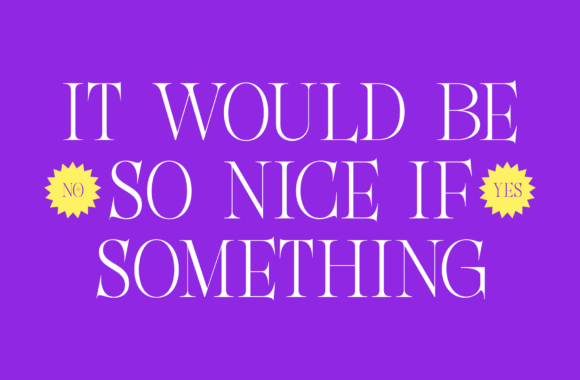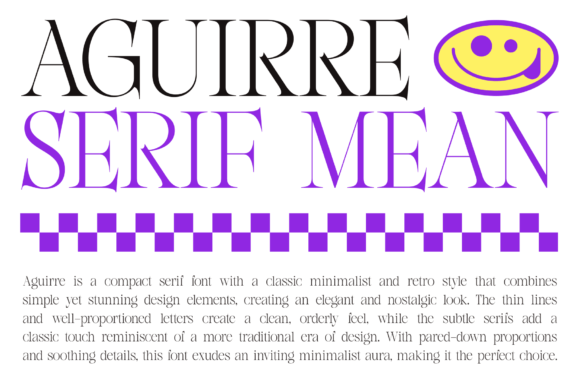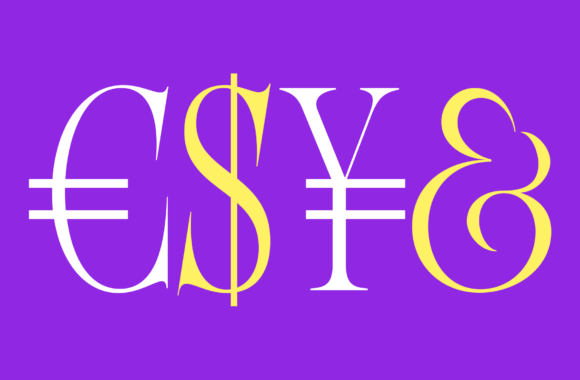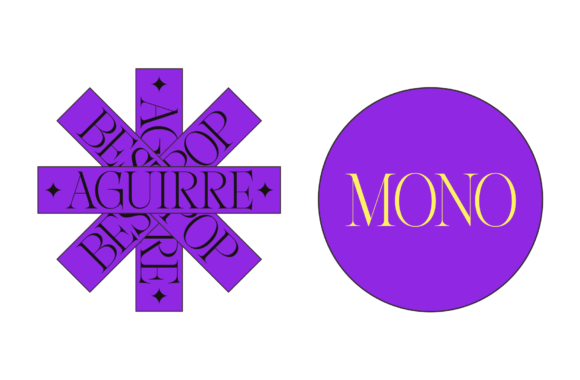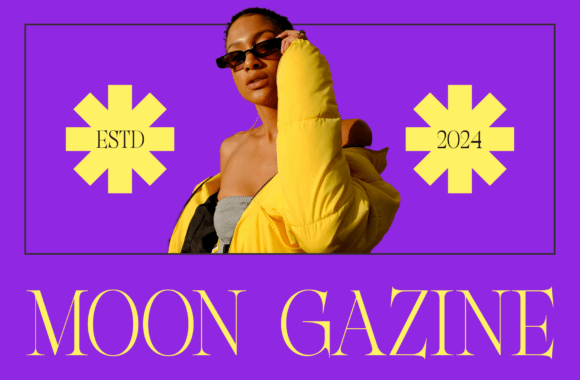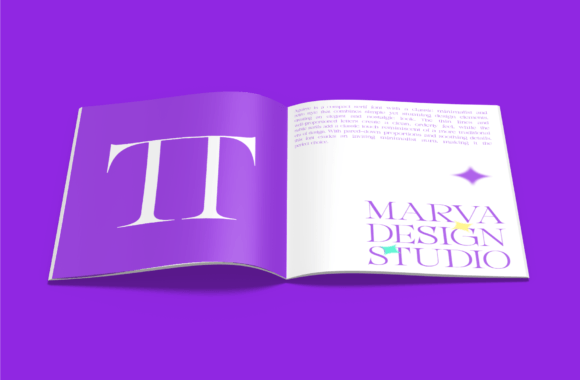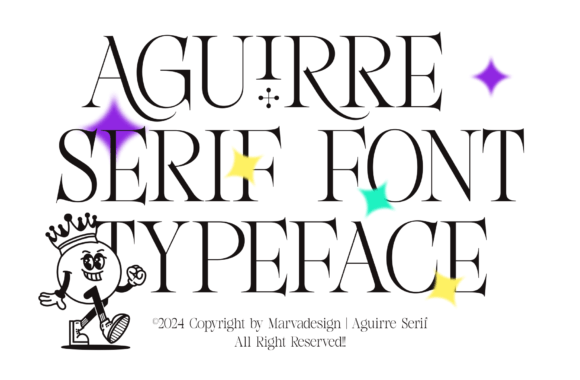
The Aguirre Font: A Timeless Classic for Creative Projects
I’ll never forget the struggle I faced while working on a vintage-themed branding project for a client. The goal was to evoke a sense of nostalgia and elegance, but I was stuck with a font that just didn’t feel right. The lines were too thick, the letters too ornate, and the overall look felt cluttered. It wasn’t until I stumbled upon the Aguirre font that the project finally came together. This compact serif font with its classic minimalist and retro style was exactly what I needed to give my design a sophisticated and inviting feel.
As I’ve continued to work with the Aguirre font, I’ve fallen in love with its simple yet stunning design elements. Here are a few things that make it stand out:
• Clean and orderly feel: The thin lines and well-proportioned letters create a sense of harmony and balance, making it perfect for body text and headings.
• Elegant and nostalgic look: The subtle serifs add a classic touch that evokes a sense of tradition and sophistication.
• OpenType features: Aguirre supports a range of OpenType features, including stylistic alternates and ligatures, which can add an extra layer of creativity to your designs.
Of course, no font is perfect, and Aguirre is no exception. A few things to keep in mind:
• 🤔 Limited character set: While Aguirre covers the basic Latin character set, it may not support more complex scripts or special characters.
• ⚠️ Not ideal for body text: While Aguirre can be used for body text, its compact nature makes it better suited for headings and titles.
Aguirre is a font that draws inspiration from the classic typography of the past. Its creator, a talented type designer, wanted to create a font that would evoke a sense of nostalgia and elegance. The result is a font that’s both timeless and versatile, perfect for a wide range of design projects.
Q: What type of projects is Aguirre best suited for?
A: Aguirre is perfect for projects that require a classic and elegant look, such as branding, packaging, and print designs.
Q: Can I use Aguirre for body text?
A: While Aguirre can be used for body text, its compact nature makes it better suited for headings and titles.
Q: Does Aguirre support OpenType features?
A: Yes, Aguirre supports a range of OpenType features, including stylistic alternates and ligatures.